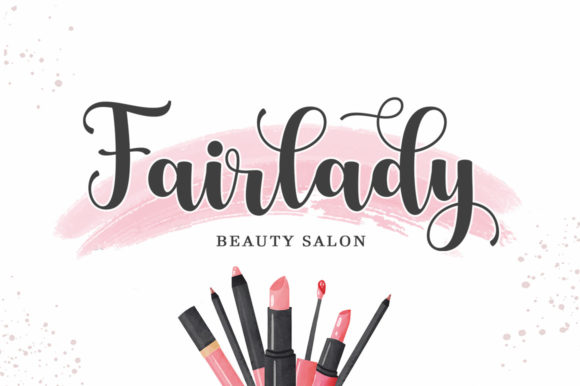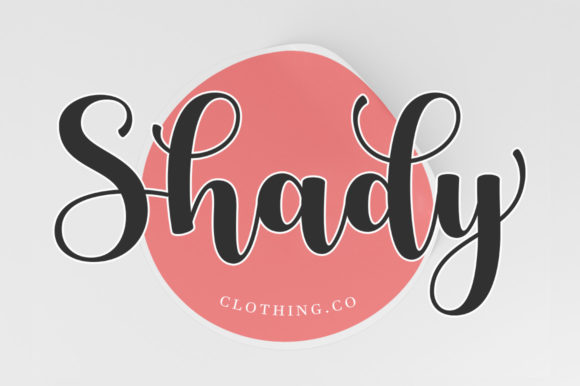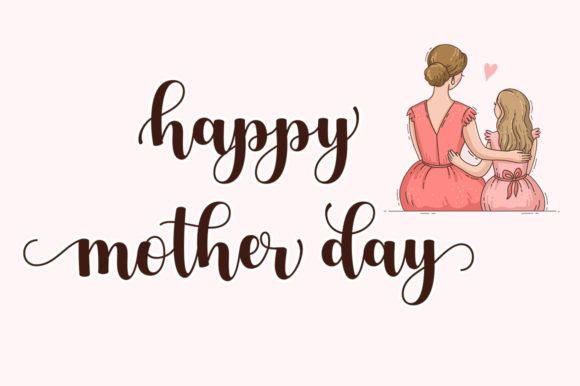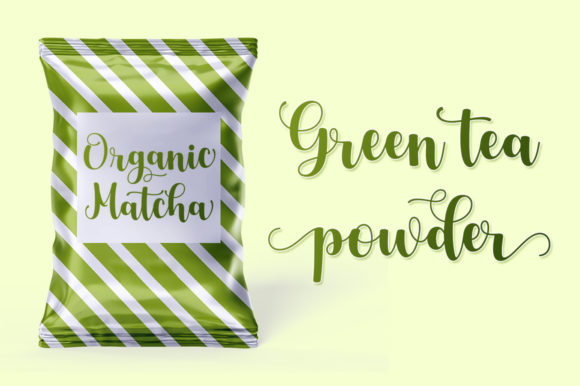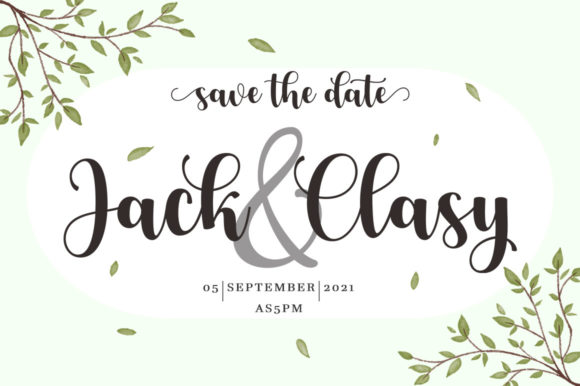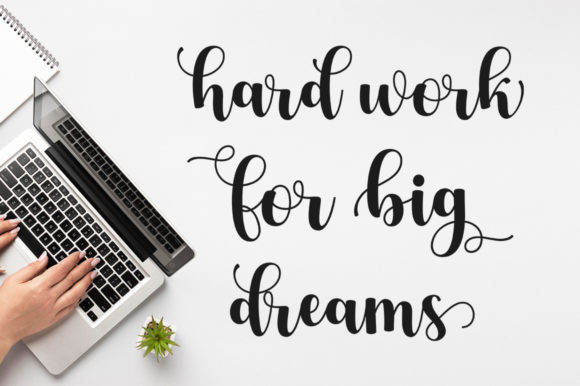
Introduction to Matcha Latte Script Font
Have you ever found yourself sipping on a matcha latte, surrounded by sketchbooks and paint-splattered canvases, feeling inspired to bring your creative project to life? It’s moments like these that remind us why we love being designers – the rush of creativity, the thrill of experimentation, and the satisfaction of watching our ideas take shape. And what better way to elevate your design than with a high-quality, one-of-a-kind font?
That’s where the Matcha Latte Script Font comes in – a lovely, bold yet sweet handwritten font that’s sure to add a touch of whimsy and sophistication to your next design. With its PUA encoding, you’ll have access to all the glyphs and swashes you need to create stunning visuals. Whether you’re working on a free download project or need a design resource for a commercial client, this font is a valuable addition to any designer’s toolkit.
Key Features of Matcha Latte Script Font
- High-quality, hand-drawn design perfect for creative projects and designs that require a unique touch.
- Designed with a high level of detail and nuance, ideal for use in designs that require a premium, high-end feel.
Honest Review: Matcha Latte Script Font
As a designer, I’m always on the lookout for high-quality design resources that can elevate my creative projects. Recently, I came across the Matcha Latte Script Font, which has become a go-to for me. Here’s my honest review.
- Beautiful, cursive script style that’s perfect for adding a touch of elegance to designs
- Limited character set, which may require additional fonts for more extensive text
- Not ideal for small text sizes, as it can become difficult to read
Overall, I’m impressed with the Matcha Latte Script Font’s unique style and versatility. While it may have some limitations, it’s a valuable addition to any design resource collection. I highly recommend it for creative projects where a touch of sophistication is needed.
Tips for Getting the Most Out of Matcha Latte Script Font
Combine the Matcha Latte Script Font with other design elements to create a visually appealing design. Experiment with different colors, font sizes, and layer styles to achieve the desired look. Use it for a variety of creative projects, such as social media graphics, blog posts, or even a wedding invitation.
The Matcha Latte Script Font is perfect for a variety of creative projects, including:
- Blog posts
- Wedding invitations
- Brand identity
- Event promotions